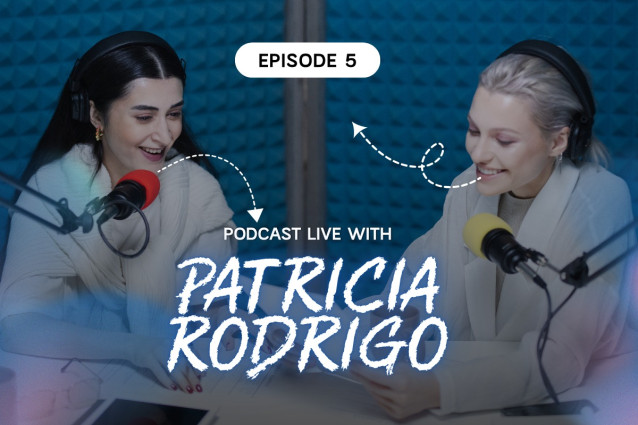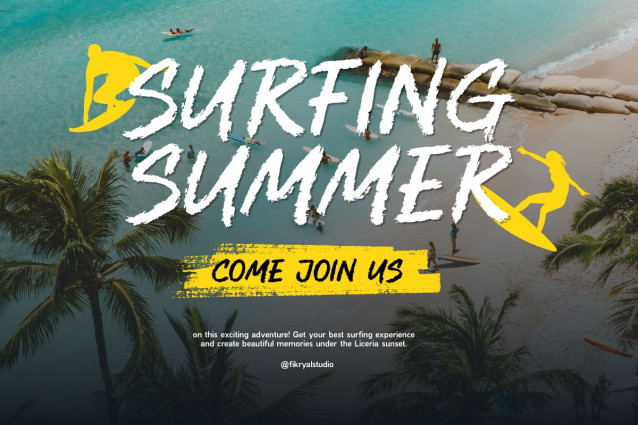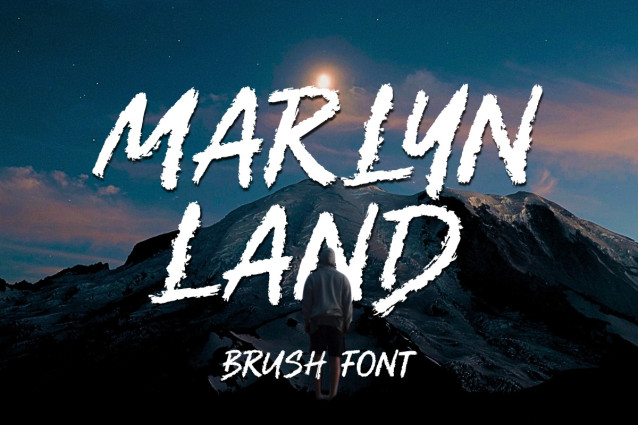
Marlyn land Brush Font
Marlyn land Brush Font is a bold all-caps brush typeface designed to bring raw energy, handcrafted texture, and expressive personality to your designs. Inspired by authentic brush lettering, this font captures a natural painted look with strong strokes, rough edges, and dynamic movement, making every word feel powerful and alive.
Perfect for branding, logo design, posters, apparel, packaging, headlines, merchandise, social media graphics, sports designs, and editorial projects, Marlyn Land delivers a striking visual impact while maintaining readability. Its uppercase-only style gives it a confident and consistent character, ideal for creating bold statements and attention-grabbing typography.
Crafted with an organic brush texture, Marlyn Land works beautifully for projects that need a rugged, energetic, urban, or rebellious feel. Whether you’re designing for streetwear branding, music artwork, action-themed posters, or bold product packaging, this font adds an authentic handcrafted touch to every composition.